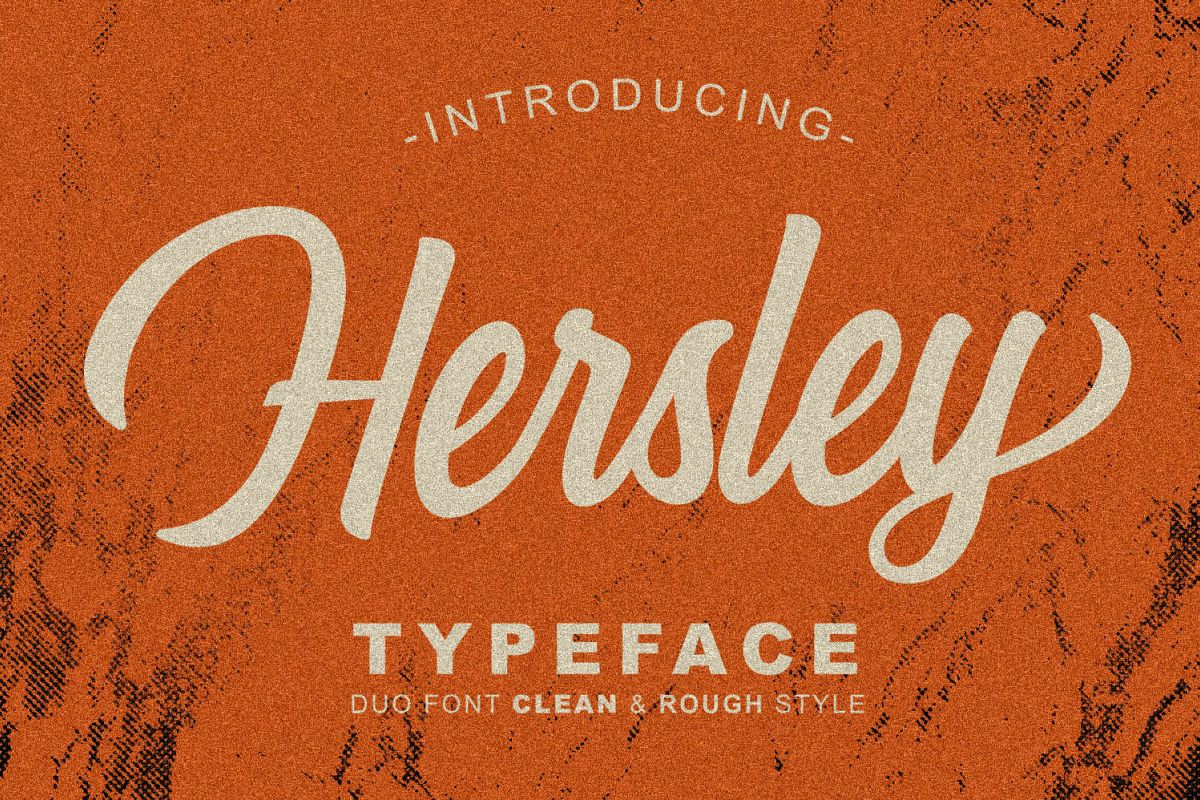
Hersley Typeface
Hersley Typeface are clean and rough style font.
You can use Hersley for your logo design, poster design, T-Shirt design,
branding, badge, name card, etc. This font have many alternates
characters, so you can combine Hersley regular characters with Hersley
alternates character for your design.
• Character A - Z
• Numeric & Punctuation
• Alternates Character